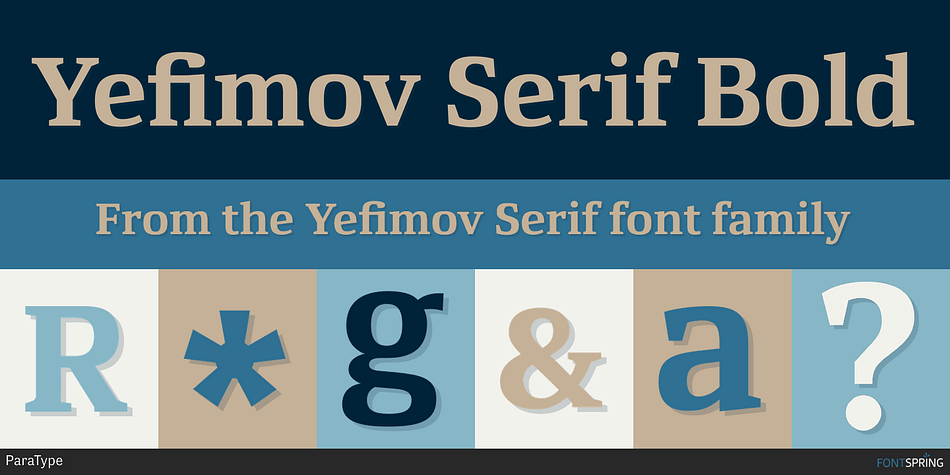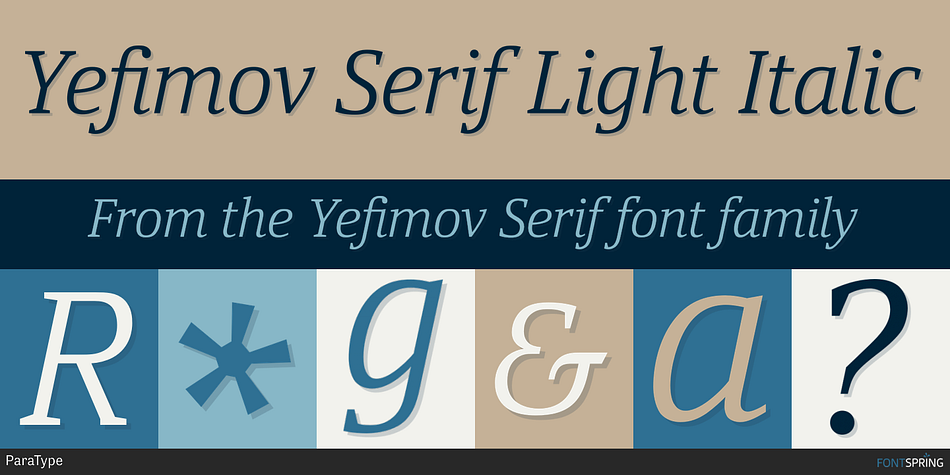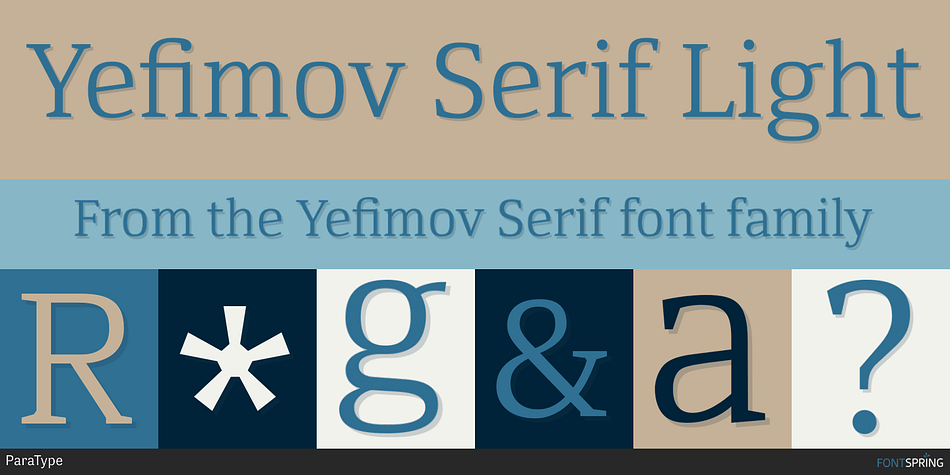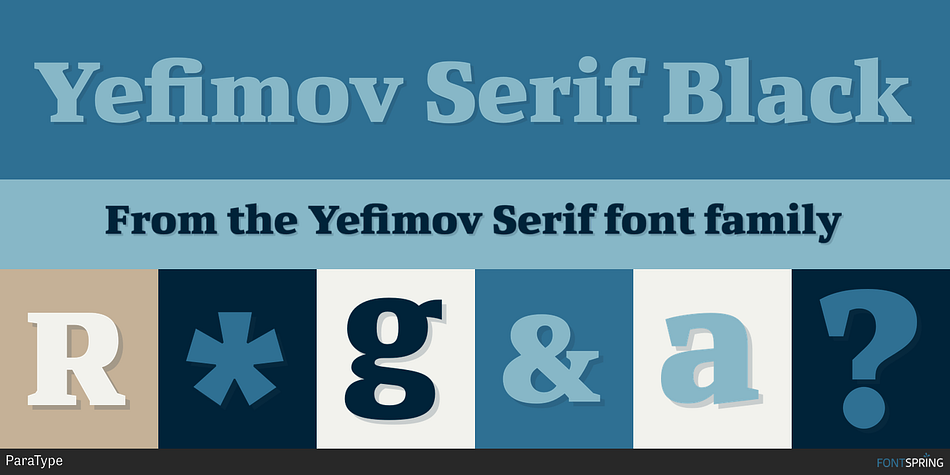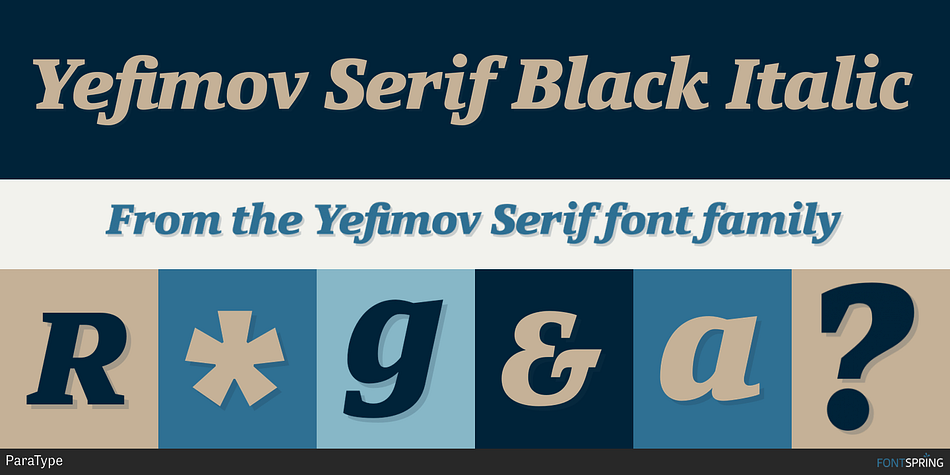
Designed by Alexandra Korolkova, Maria Selezeneva and Vladimir Yefimov, Yefimov Serif is a serif font family. This typeface has eight styles and was published by ParaType.
Yefimov Serif is a contemporary serif face, with low contrast, squarish shapes of round glyphs and emphasized businesslike nature. It is one of the last original faces by Vladimir Yefimov. Yefimov Serif will suit perfectly for business texts, periodicals and corporate identity. The typeface was completed by Maria Selezeneva and released by ParaType in 2014.